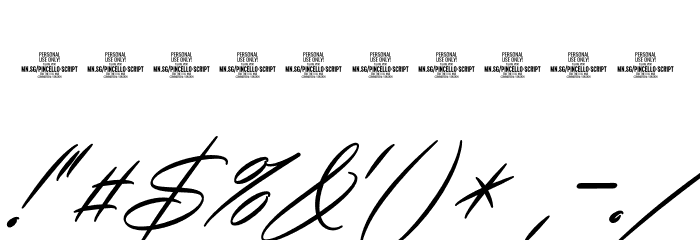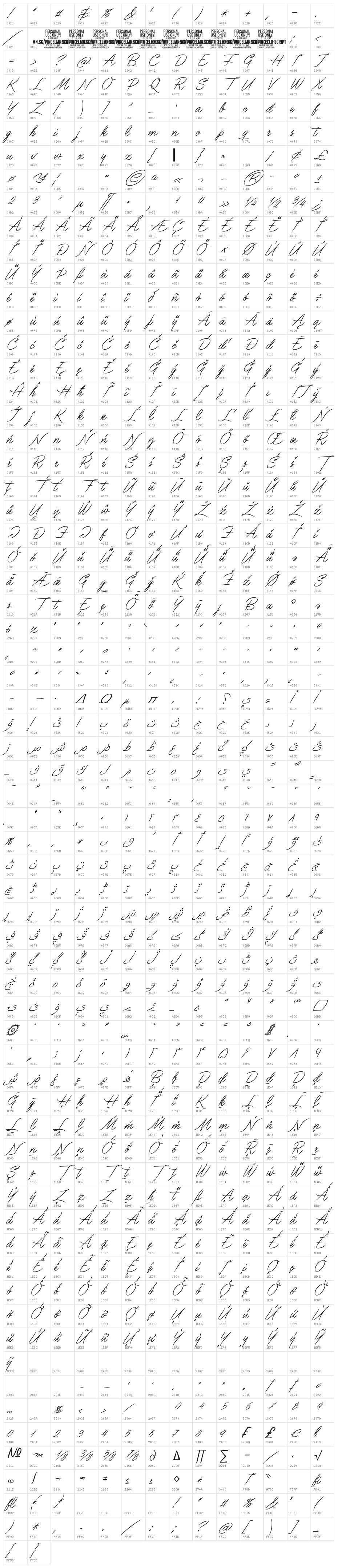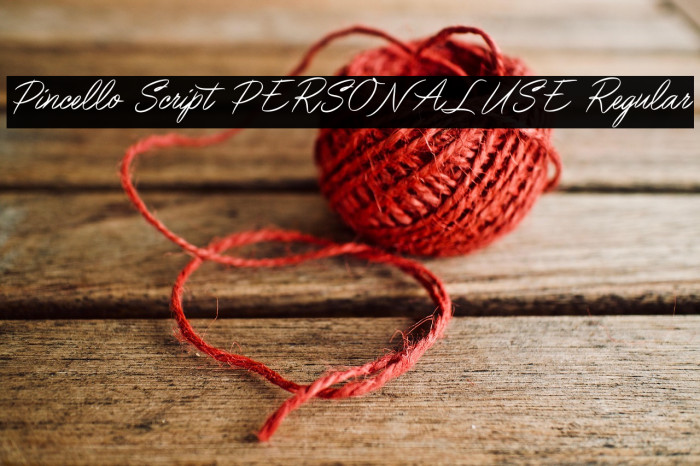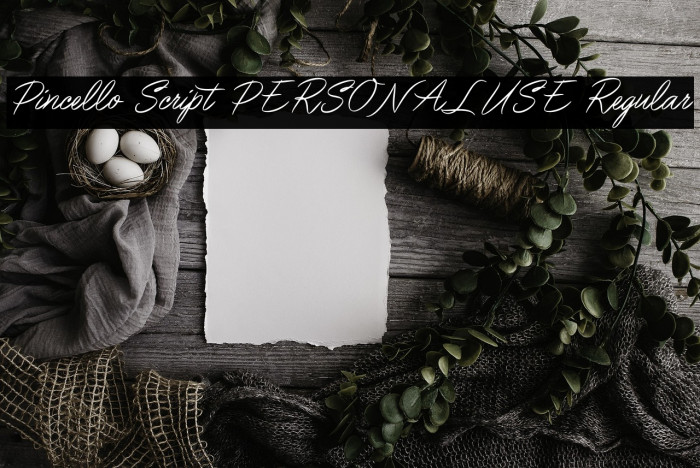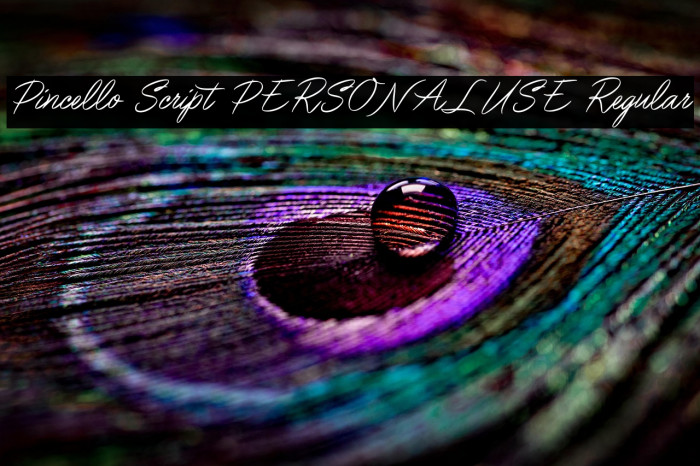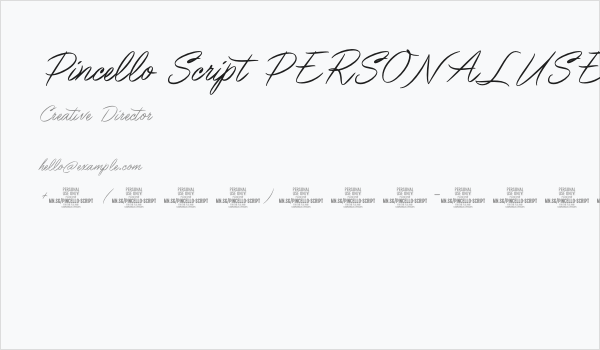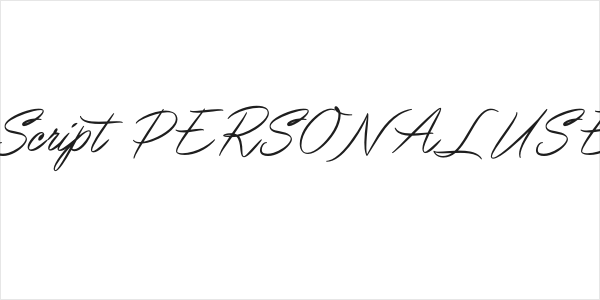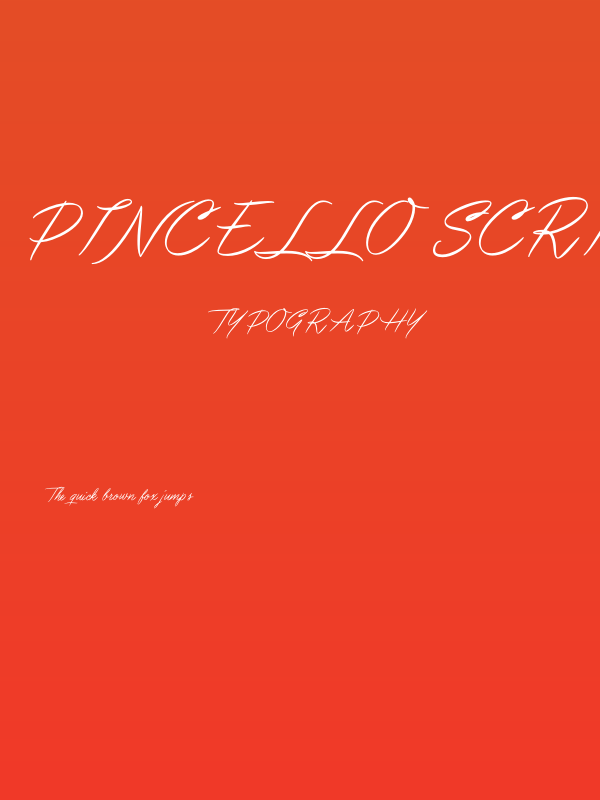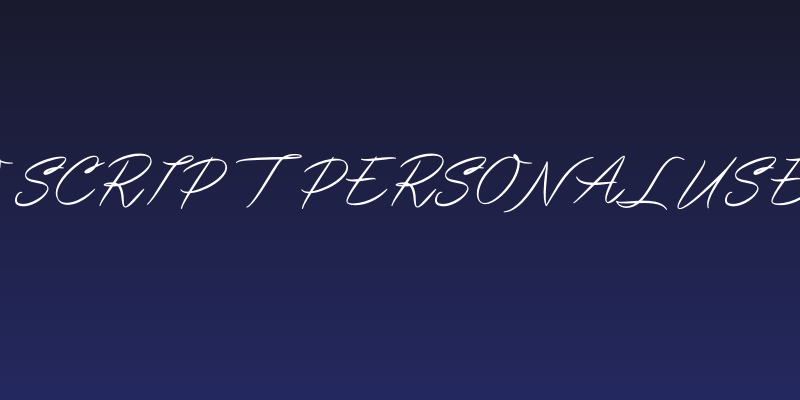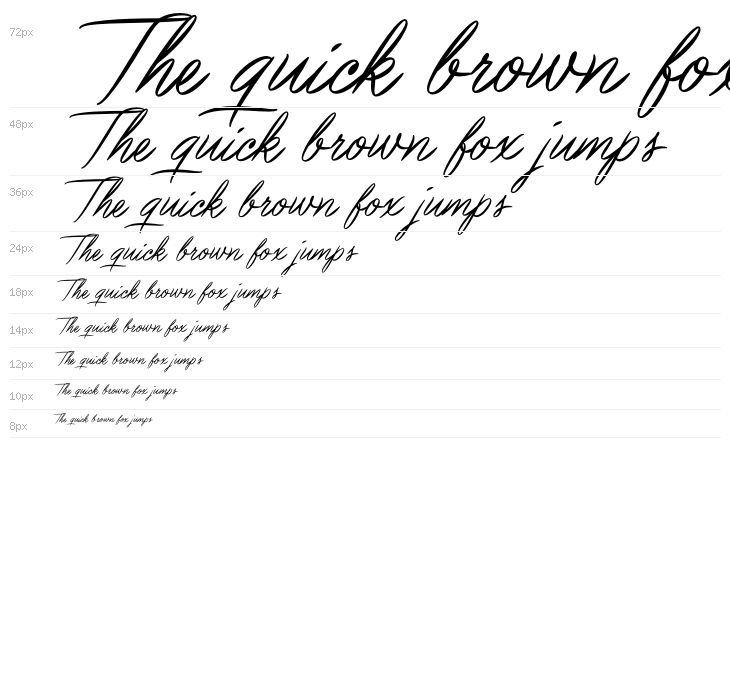
Pincello Script PERSONAL USE Regular Font
Pincello Script PERSONAL USE Regular Description
This elegant script font features fluid, cursive strokes that mimic the natural flow of handwriting. The uppercase letters are graceful and slightly elongated, while the lowercase letters maintain a consistent slant, creating a harmonious and sophisticated appearance. The font includes a full set of numerals and a variety of special characters, making it versatile for different design needs. Its smooth curves and connected letters give it a personal and artistic touch, ideal for projects that require a touch of elegance and style.